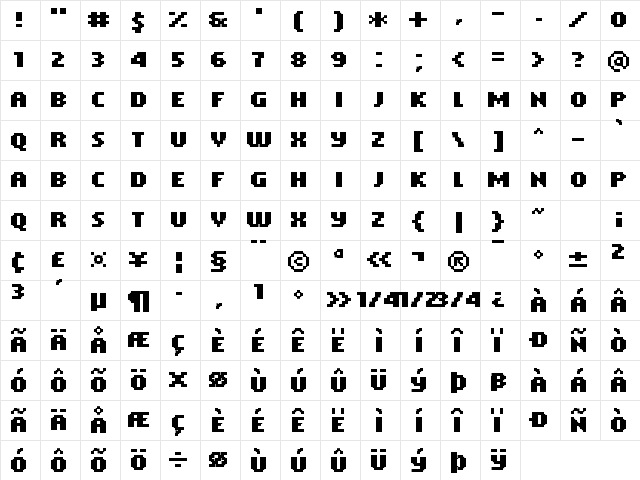
Complete PF Tempesta Five Compressed Bold glyph index. Displaying only characters natively supported by PF Tempesta Five Compressed Bold font.
PF Tempesta Five Compressed is a composed and adaptable typeface that performs quietly and consistently across a wide range of design contexts. Its bold stroke weight gives it real presence on the page.